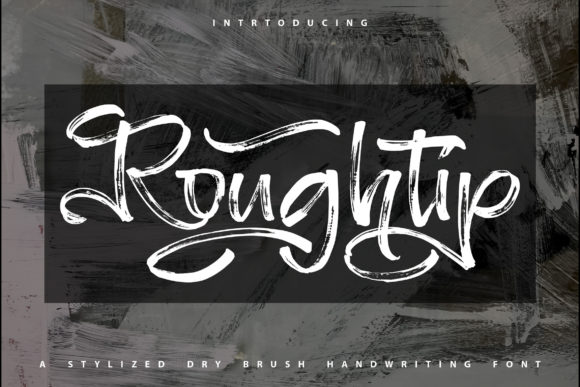
Roughtip Font
**Introducing Roughtip: The Ultimate Display Font for Unforgettable Art**
Prepare to elevate your designs with Roughtip, the remarkable display font that will leave a lasting impression. Step into a world of bold expression and create captivating artwork that commands attention.
Roughtip is the epitome of cool, with its effortlessly flowing strokes that evoke a timeless elegance. It's a font that embodies the essence of freedom and creativity, allowing you to effortlessly craft visuals that resonate with your audience.
Whether you're a seasoned designer or just starting your artistic journey, Roughtip will unleash your potential. This easy-to-use font is PUA encoded, granting you effortless access to a treasure-trove of glyphs and swashes. Unleash your imagination and explore endless possibilities to create designs that captivate and inspire.
Imagine your name art transformed into a masterpiece, each letter a brushstroke of pure charisma. Roughtip will elevate your words, turning them into works of art that speak volumes without uttering a single sound.
But Roughtip's allure extends far beyond name art. It's a font that empowers you to create stunning posters, flyers, and prints that demand attention. Its versatility knows no bounds, adapting seamlessly to any canvas you choose.
Prepare to fall head over heels for Roughtip, the display font that will ignite your creativity and leave an unforgettable mark on the world.
**Key Features:**
* Bold, brushed display font
* Effortless elegance and cool vibes
* PUA encoded for easy access to glyphs and swashes
* Perfect for name art, posters, flyers, and prints
**Benefits:**
* Unleash your creativity with limitless possibilities
* Craft designs that captivate and inspire
* Elevate your name art to new heights
* Create stunning posters, flyers, and prints that demand attention